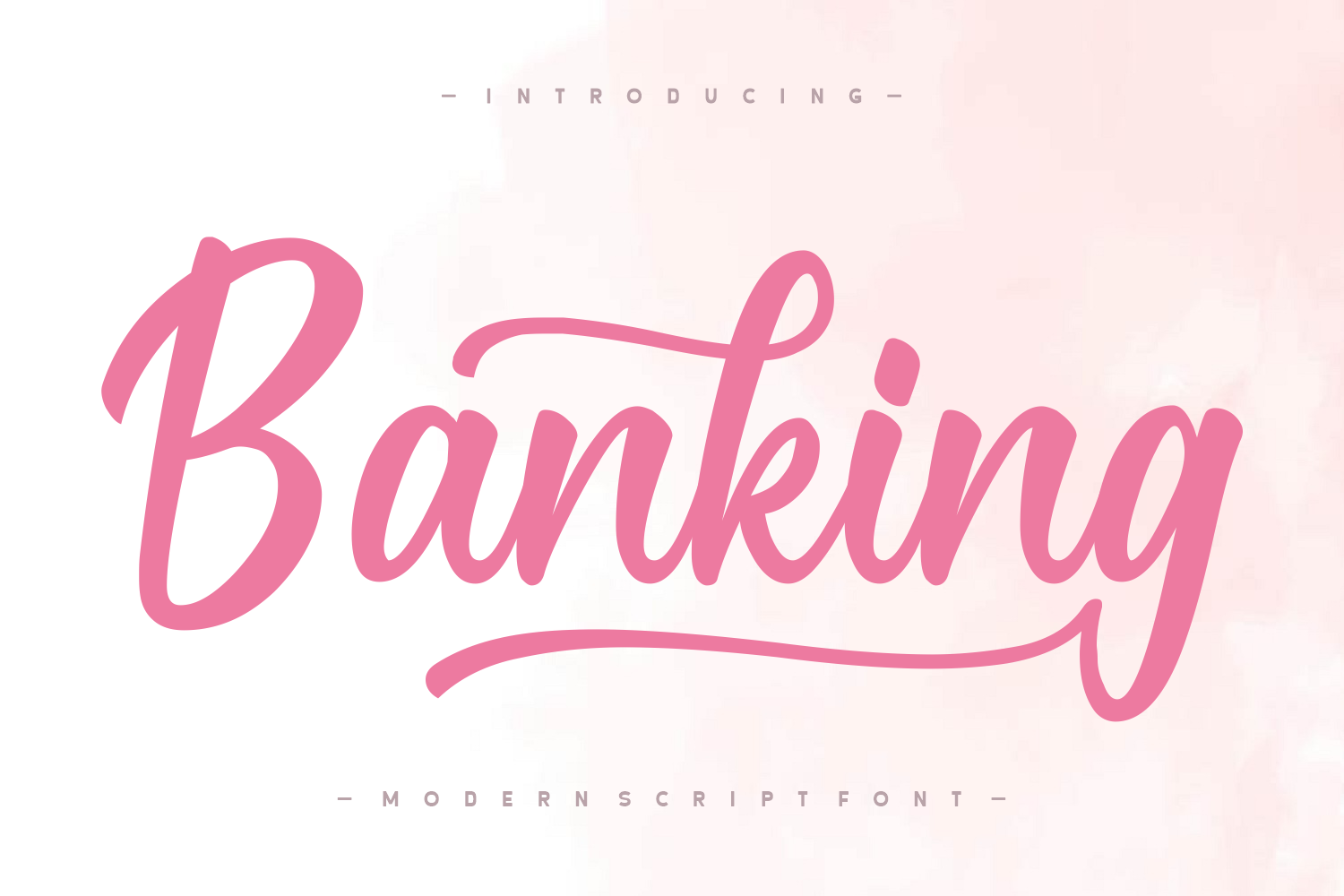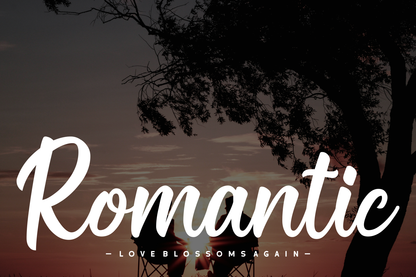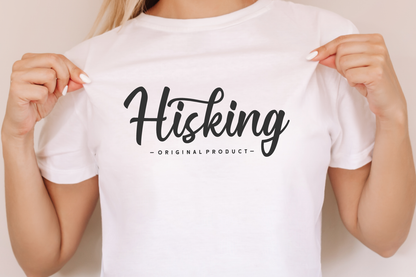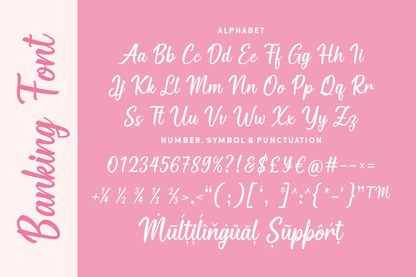
Banking is a stylish and modern script font that blends smooth curves with bold personality. Its flowing strokes and playful swashes make it ideal for feminine branding, Instagram quotes, beauty logos, and lifestyle designs. The font's energetic yet elegant vibe adds charm and approachability to any creative project.